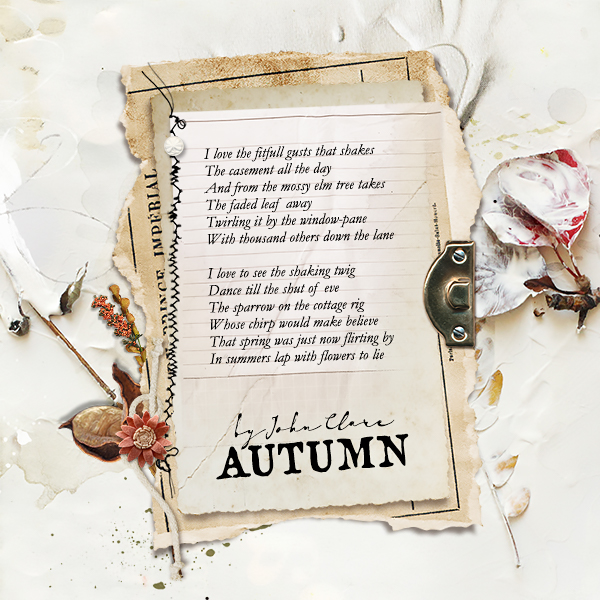
Font Challenge | Autumn
For the October Font Challenge.
Used fonts: Garamond, Paris 1920 Script, Old Newspaper Types
Beautiful font choices. The poem looks great on the stacked papers with the fall background.
Love using a typewriter font for your title, and I am going to have to get that script font, it's gorgeous. Nice take on the challenge!
Very nice use of gessos, and paper overlays. These three fonts match perfectly.